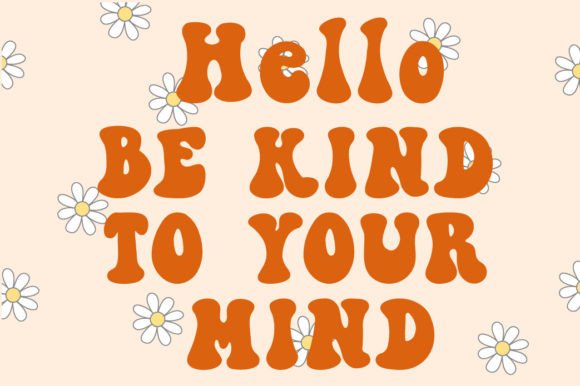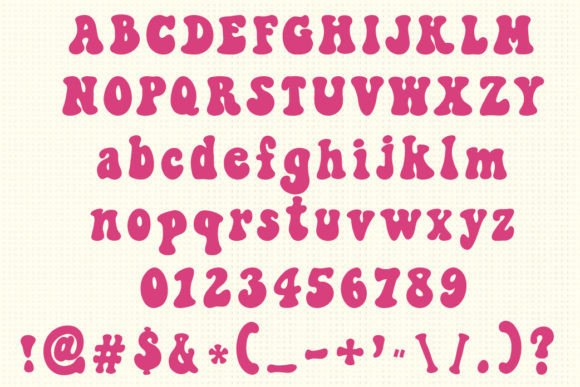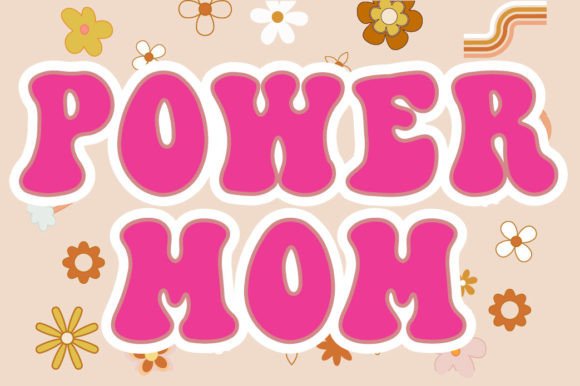
Groove Groove Font: The Ultimate Retro 60s Style Font for Creative Design Projects
Are you a designer or crafter looking for a font that embodies the spirit of the 1960s? Do you want to add a touch of nostalgia and playfulness to your designs? Look no further than the Groove Groove Font! This retro-style font is perfect for a wide range of creative projects, from logos and stickers to packaging designs, Cricut projects, t-shirts, posters, invitations, and more.
What is Groove Groove Font?
Groove Groove Font is a carefully crafted digital font that captures the essence of the 1960s retro style. Its unique and distinctive design makes it perfect for designers and crafters who want to add a touch of nostalgia and fun to their projects. The font features bold lines, curvaceous shapes, and a playful vibe that’s sure to transport your audience back to the groovy era of the 1960s.
Key Features of Groove Groove Font
- Retro 60s Style: Groove Groove Font is inspired by the iconic designs of the 1960s, making it perfect for projects that require a nostalgic touch.
- Versatile: This font can be used for a wide range of creative projects, from logos and branding to packaging designs, Cricut projects, t-shirts, posters, and more.
- High-Quality: The font is carefully crafted to ensure high-quality output, making it perfect for both personal and commercial projects.
Groove Groove Font is perfect for designers and crafters who want to add a touch of nostalgia and playfulness to their projects. Whether you’re creating logos, stickers, packaging designs, or Cricut projects, this font is sure to inspire your creativity. Here are some ideas for using Groove Groove Font:
- Logos and Branding: Use Groove Groove Font to create a retro-style logo that captures the essence of your brand.
- Stickers and Packaging Designs: Add a touch of nostalgia to your stickers and packaging designs with this fun and playful font.
- Cricut Projects: Use Groove Groove Font to create custom vinyl decals, iron-on designs, and more for your Cricut projects.
- T-Shirts and Apparel: Create custom t-shirts, hoodies, and other apparel with Groove Groove Font for a unique and eye-catching design.
- Posters and Invitations: Use this font to create retro-style posters and invitations for parties, events, and more.
Why Choose Groove Groove Font?
So why choose Groove Groove Font for your creative projects? Here are just a few reasons:
- Unique and Distinctive: Groove Groove Font is a one-of-a-kind font that’s sure to make your projects stand out.
- High-Quality: Groove Groove Font is carefully crafted to ensure high-quality output, making it perfect for both personal and commercial projects.
Groove Groove Font is the ultimate retro 60s style font for creative design projects. With its unique and distinctive design, versatility, and ease of use, this font is perfect for designers and crafters who want to add a touch of nostalgia and playfulness to their projects. Whether you’re creating logos, stickers, packaging designs, or Cricut projects, Groove Groove Font is sure to inspire your creativity and take your designs to the next level.